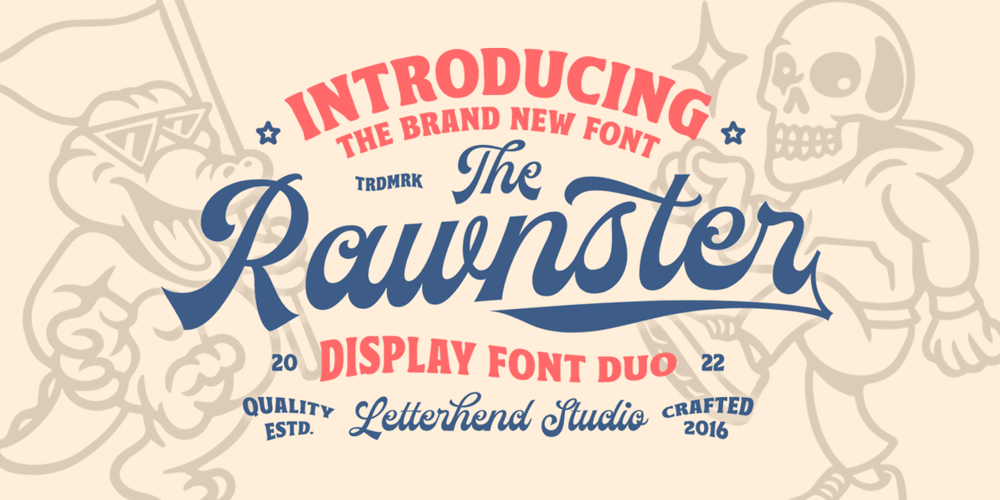
Rawnster Font Duo
Rawnster Font Duo Font Family was designed by Hendry Juanda and published by Letterhend. Rawnster Font Duo contains 2 styles and family package options. Introducing, The Rawnster Font Duo ! A pair of font with a touch of vintage look and feel. This font duo is also perfectly made to be applied especially in logo, headline, signage and the other various formal forms such as invitations, labels, logos, magazines, books, greeting / wedding cards, packaging, fashion, make up, stationery, novels, labels or any type of advertising purpose.Features : Script and Serif uppercase & lowercase numbers and punctuation multilingual alternates / swashes and ligatures PUA encoded We highly recommend using a program that supports OpenType features and Glyphs panels like many of Adobe apps and Corel Draw, so you can see and access all Glyph variations.